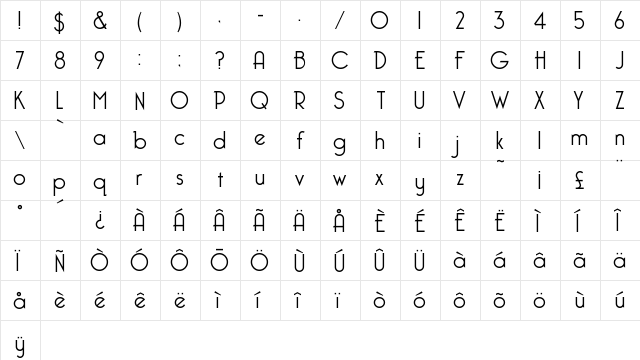
Bellerose Light Font Preview
Bellerose Light
Bellerose Light Font Details
Design Context for Bellerose Typeface
Bellerose is a composed and adaptable typeface that performs quietly and consistently across a wide range of design contexts. Its slender proportions lend an understated elegance to any composition.